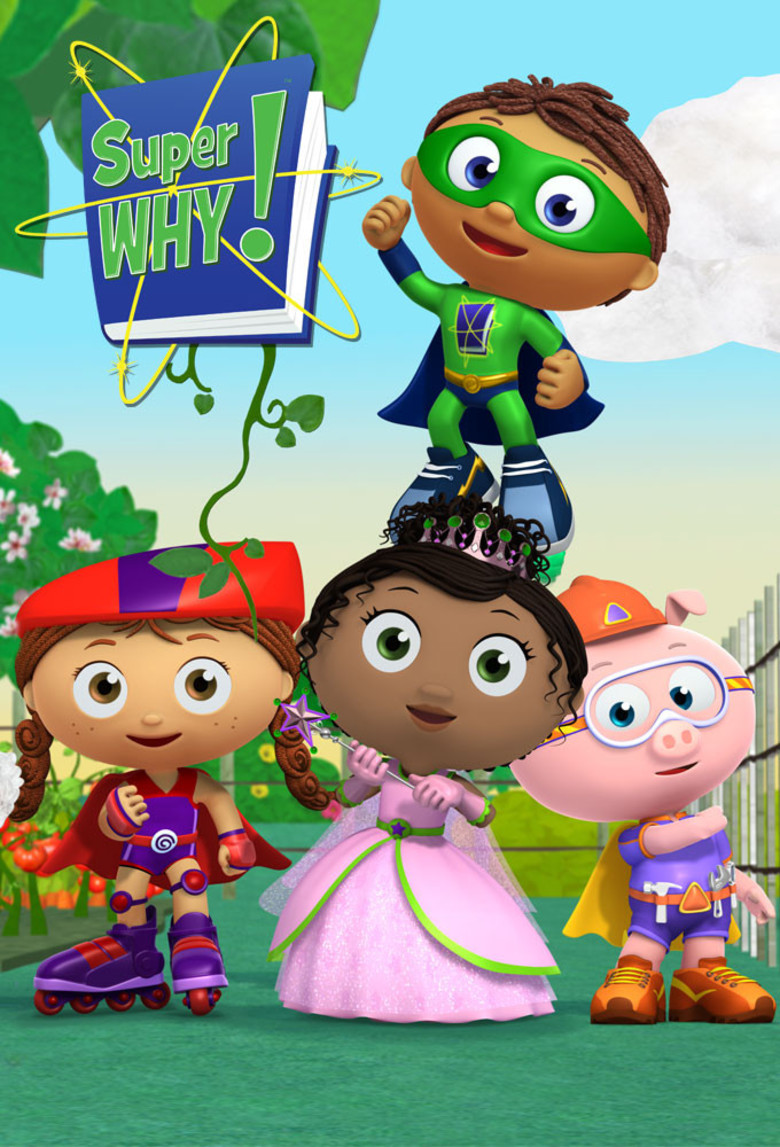
Super Why Font
AdventureSuper Why! is an interactive CGI animated adventure show designed to teach young children the alphabet and to promote early literacy. The show follows the main character, Whyatt, and his friends as they transform into "super readers" and use reading to solve problems in their everyday lives.
The "Super" in the TV title is most probably an oblique version of Grilled Cheese Regular, and "WHY"? is either a heavily modified version of Grilled Cheese or an oblique version of Bebas Neue.